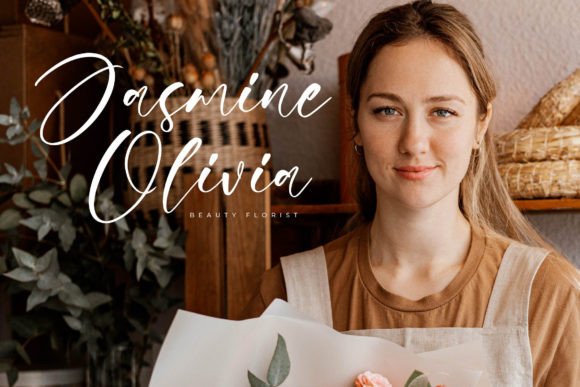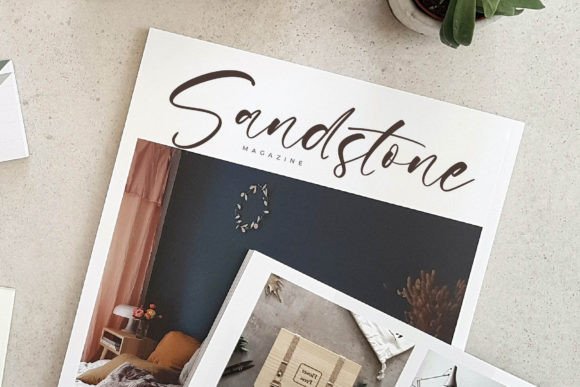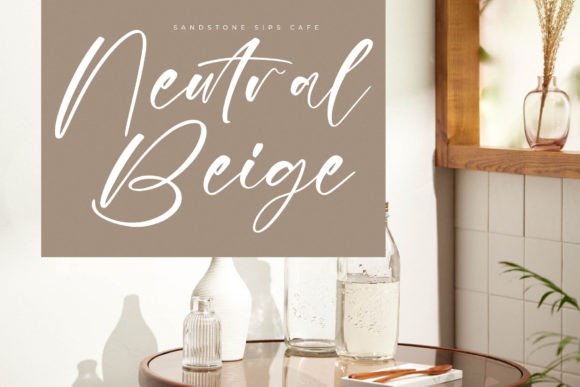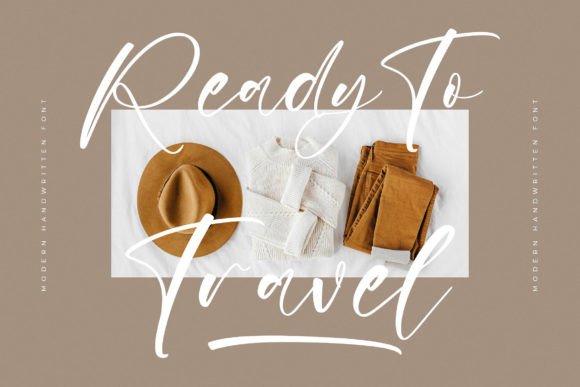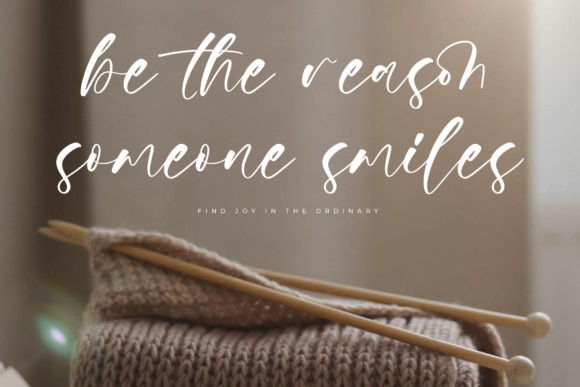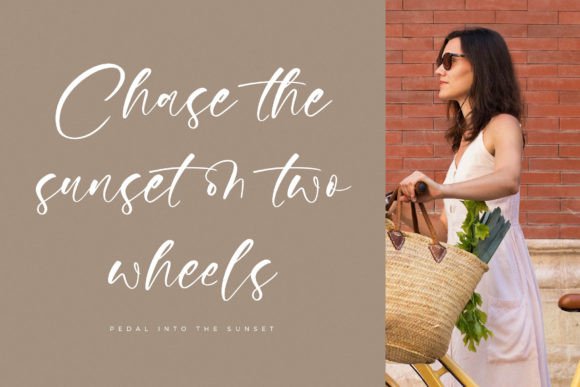
Have you ever found yourself pouring over design inspiration boards, searching for the perfect font to elevate your latest project? The struggle is real, but what if I told you there’s a secret to effortless elegance? Enter the Genthome Special Font, a stylish script font that embodies sophistication and refinement.
This beautiful font is designed to convey luxury and glamour, with fluid, sweeping letterforms that add a touch of timeless charm to any project. Whether you’re working on a high-end branding campaign or a special occasion invitation, the Genthome Special Font is the perfect choice to elevate your designs and leave a lasting impression.
- Unique Characteristics: The font features a unique blend of modern and classic elements, with subtle nuances that give it a sophisticated look.
- Kerning and Ligatures: The font includes advanced kerning and ligature pairs, ensuring that text appears smooth and visually appealing.
Genthome Special Font Review
As a designer, I’ve had the chance to work with the Genthome Special Font, and here’s my honest review.
What works well: ✨ This font has a unique, elegant feel to it. The curved lines and rounded edges give it a soft, sophisticated look that’s perfect for high-end branding and design projects. I particularly appreciate the wide range of weights and styles available, making it easy to customize to fit any design need.
What doesn’t work well: ⚠️ While the font is beautiful, it can be a bit too ornate for certain projects. I’ve found that it can be overpowering if not used judiciously, and may not be the best choice for projects that require a more straightforward, clean design aesthetic.
Overall, I’d say the Genthome Special Font is a great addition to any designer’s toolkit. It’s perfect for projects that require a touch of elegance and sophistication, but may not be the best choice for every design project.
Pros and Cons:
- Unique, elegant design
- Wide range of weights and styles
- Perfect for high-end branding and design projects
- Can be overpowering if not used judiciously
- May not be suitable for all design projects
Getting the Most Out of Genthome Special Font
For optimal results, use Genthome Special Font in conjunction with other elegant fonts. Experiment with different font sizes and colors to create a visually appealing design. You can also use it to create custom titles, headings, or quotes.
Genthome Special Font is ideal for creating elegant invitations, wedding stationery, and other formal documents. It can also be used for branding and logo design, as well as creating visually appealing social media graphics.
Alternatives to Genthome Special Font for Designers
Great Vibes is a beautiful script font that works well for creating a sense of elegance and sophistication. It is ideal for use in wedding invitations, branding, and other high-end designs. Great Vibes has a more refined and polished look compared to Genthome Special Font, which can be more playful and rough around the edges.
Carolyna Pro is a stylish script font that is perfect for designers looking for a more modern and sleek look. It is suitable for use in fashion, beauty, and lifestyle branding, as well as for creating eye-catching headlines and titles. Compared to Genthome Special Font, Carolyna Pro has a more streamlined and sophisticated feel.
Alex Brush is a elegant and refined script font that is ideal for use in high-end designs, such as luxury branding, invitations, and editorial content. It has a more subtle and understated look compared to Genthome Special Font, which can be more dramatic and attention-grabbing.